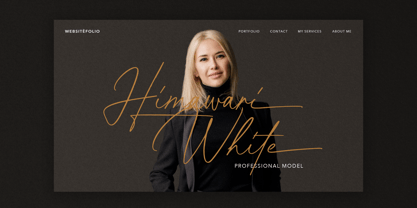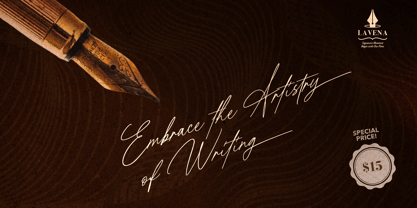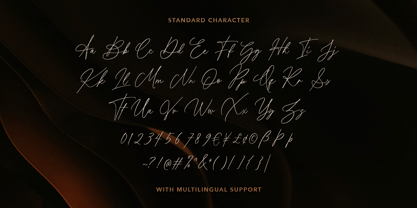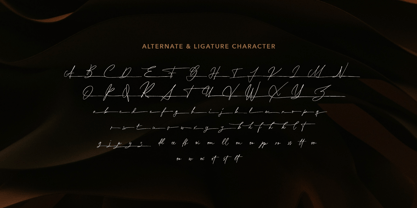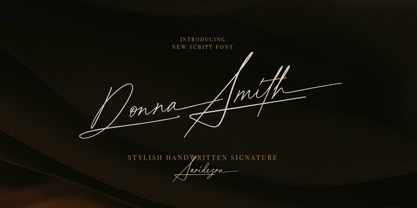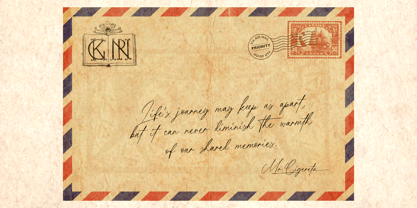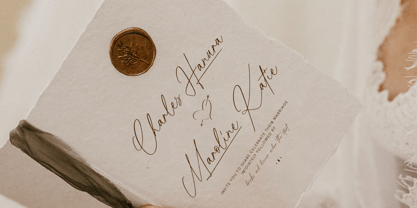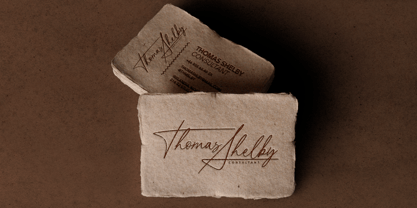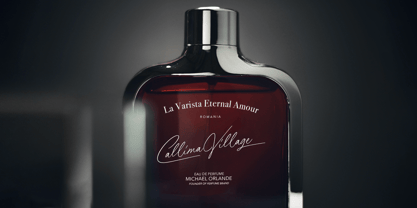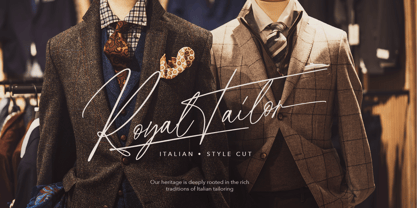
Donna Smith
by Sarid Ezra
The Donna Smith Font Family was designed by Sarid Ezra and published by Sarid Ezra. Donna Smith contains 1 styles. More about this family
Donna Smith is a stylish signature script that have beautifully crafted ligatures and alternates. This is the font if you want to make your own signature or logotype for your brand. With stunning alternates of uppercase characters, you make your designs looks more interesting and stunning. You can also use this font for any other purposes, such as quotes and wedding invitations. Donna Smith also support multi language.
Designers: Sarid Ezra
Foundry: Sarid Ezra